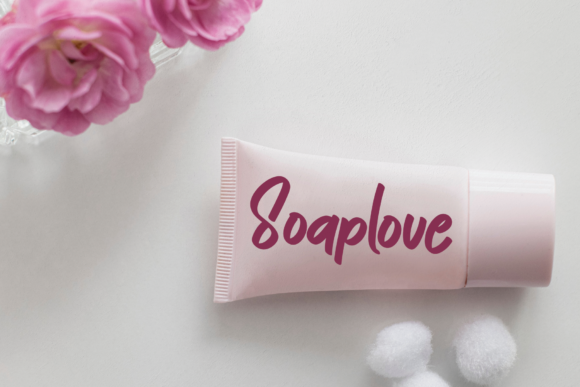
Introducing Comeback Signature Font: Elevate Your Designs with a Chic and Relaxed Handwritten Style
In the world of typography, a font can make or break a design. It’s the perfect blend of style, personality, and functionality that can elevate a creation from ordinary to extraordinary. If you’re a designer, crafty enthusiast, or simply someone who appreciates beautiful typography, you’re in luck! We’re excited to introduce the Comeback Signature Font, a chic and relaxed handwritten font that’s sure to become a staple in your font library.
What is Comeback Signature Font?
Comeback Signature is a carefully crafted handwritten font that exudes a sense of effortless elegance. Its relaxed and natural feel makes it perfect for a wide range of design projects, from branding and packaging to invitations and digital media. Whether you’re looking to add a personal touch to your work or create a distinctive brand identity, Comeback Signature Font is an excellent choice.
Key Features of Comeback Signature Font
- Handwritten with love: Comeback Signature Font is meticulously crafted to mimic the natural flow of handwritten text, giving your designs a warm and approachable feel.
- Chic and relaxed: The font’s chic and relaxed style makes it versatile enough to be used in various design contexts, from formal to informal.
- Highly legible: Despite its handwritten nature, Comeback Signature Font remains highly legible, ensuring that your message is conveyed clearly and effectively.
- Perfect for branding: With its unique personality, Comeback Signature Font is an excellent choice for creating a distinctive brand voice and visual identity.
Use Cases for Comeback Signature Font
The versatility of Comeback Signature Font makes it suitable for a wide range of design projects, including:
- Branding and logos: Create a memorable brand identity with a unique and recognizable font.
- Invitations and events: Add a personal touch to your invitations, wedding stationery, or event branding.
- Packaging and labels: Stand out on store shelves with eye-catching packaging and labels featuring Comeback Signature Font.
- Digital media: Use the font in your social media graphics, blog posts, or website to create a consistent visual brand.
Why Choose Comeback Signature Font?
With so many fonts available, why choose Comeback Signature Font? Here are a few compelling reasons:
- Unique personality: Comeback Signature Font has a distinct character that will set your designs apart from the crowd.
In conclusion, Comeback Signature Font is a valuable addition to any designer’s font library. Its chic and relaxed handwritten style makes it perfect for a wide range of design projects, from branding and packaging to digital media. With its unique personality, high legibility, and versatility, Comeback Signature Font is sure to elevate your designs and help you create something truly special. So why wait? Get your hands on Comeback Signature Font today and start creating stunning designs that leave a lasting impression!